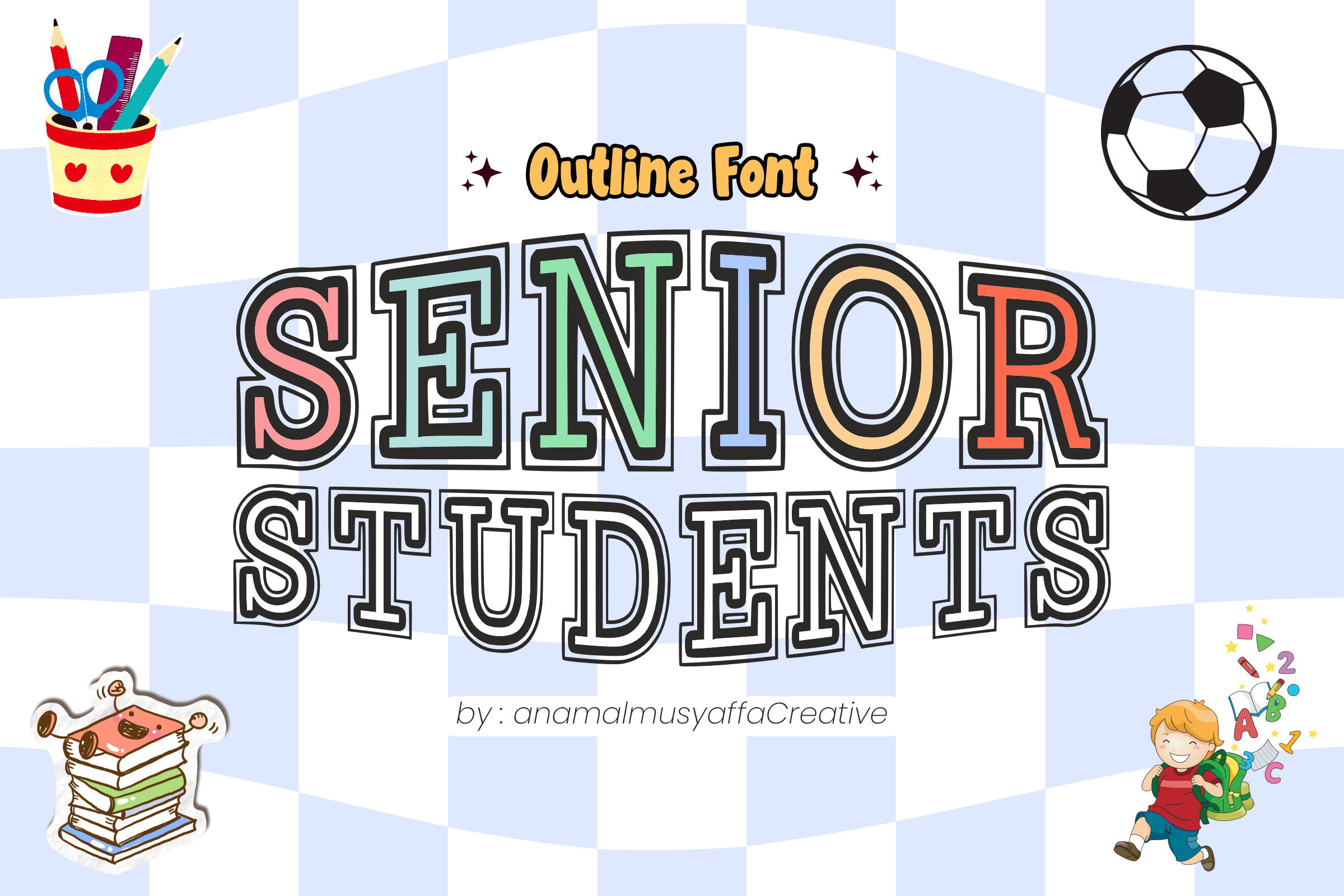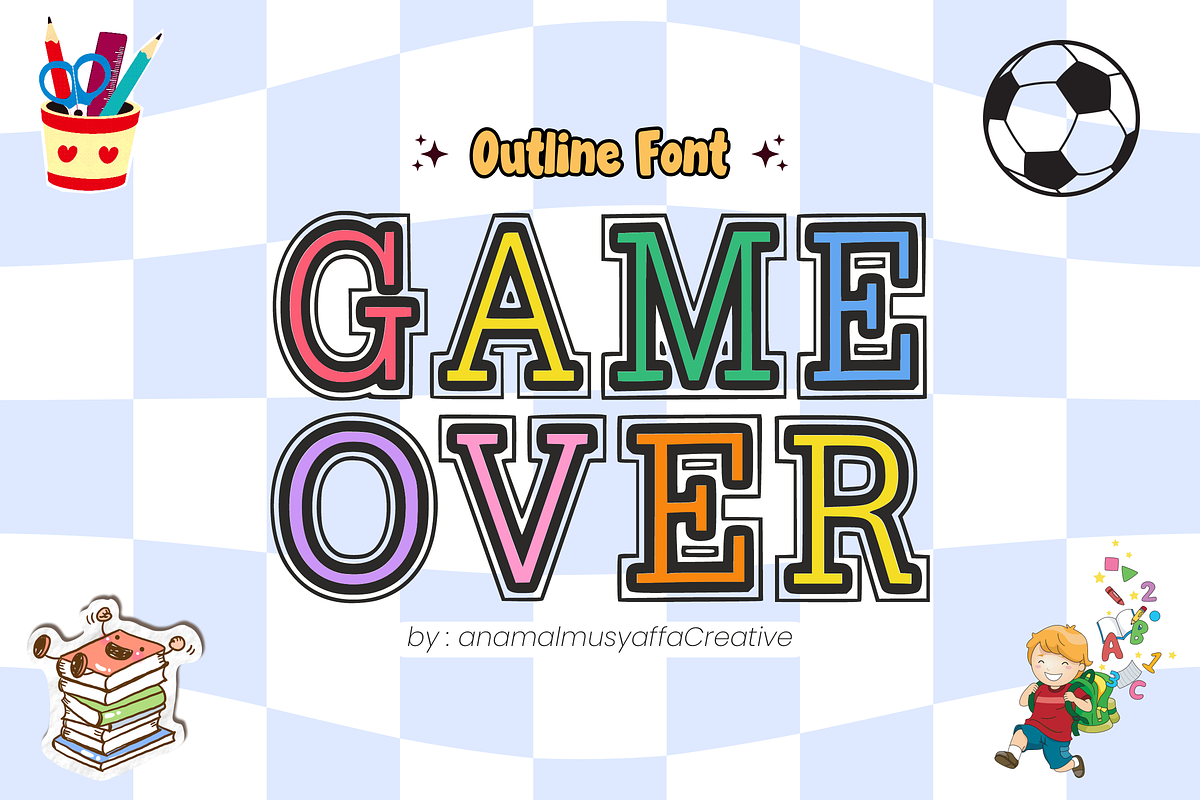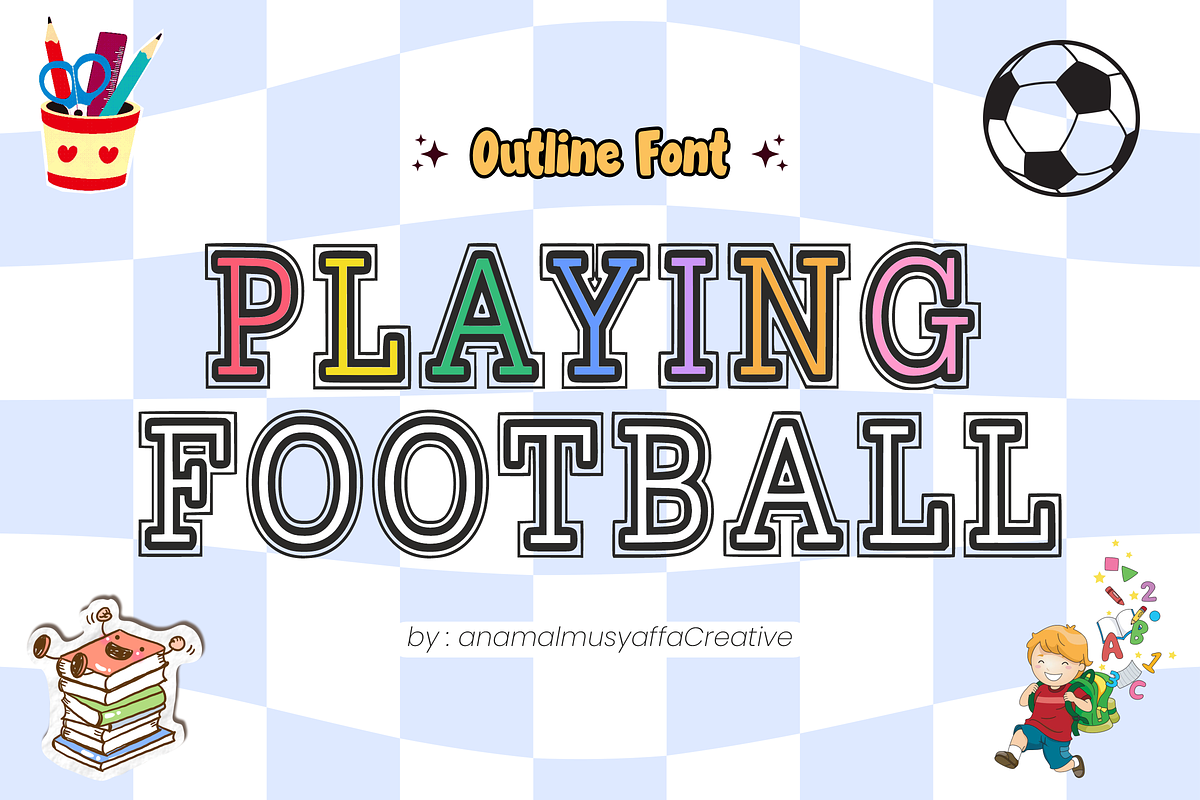
Senior Students - Serif Font Displa
๐ Senior Students - Classic & Playful Serif Outline Font ๐ Bring a touch of academic charm to your creative projects with Senior Students! This display serif font features a bold outline style with a classic academic feel, perfectly blended with a playful, hand-drawn personality. Itโs the ideal choice for designs that need to look smart, established, yet full of youthful energy.
Whether you're working on university-themed merch, school event posters, or nostalgic collegiate branding, Senior Students provides high-impact legibility with a stylish vintage twist!
โจ Features: Bold All-Caps Set (Classic & Strong) ๐
Numbers & Essential Symbols ๐ข
Clean Serif Outline Aesthetic ๐๏ธ
Professional yet Playful Vibe ๐
๐ Perfect For: School & University Branding ๐ซ
Graduation Invitations & Senior Apparel ๐
Sports Team Graphics & Varsity Merch โฝ
Educational Posters & Classroom Decor ๐
Nostalgic Book Covers & Journaling ๐